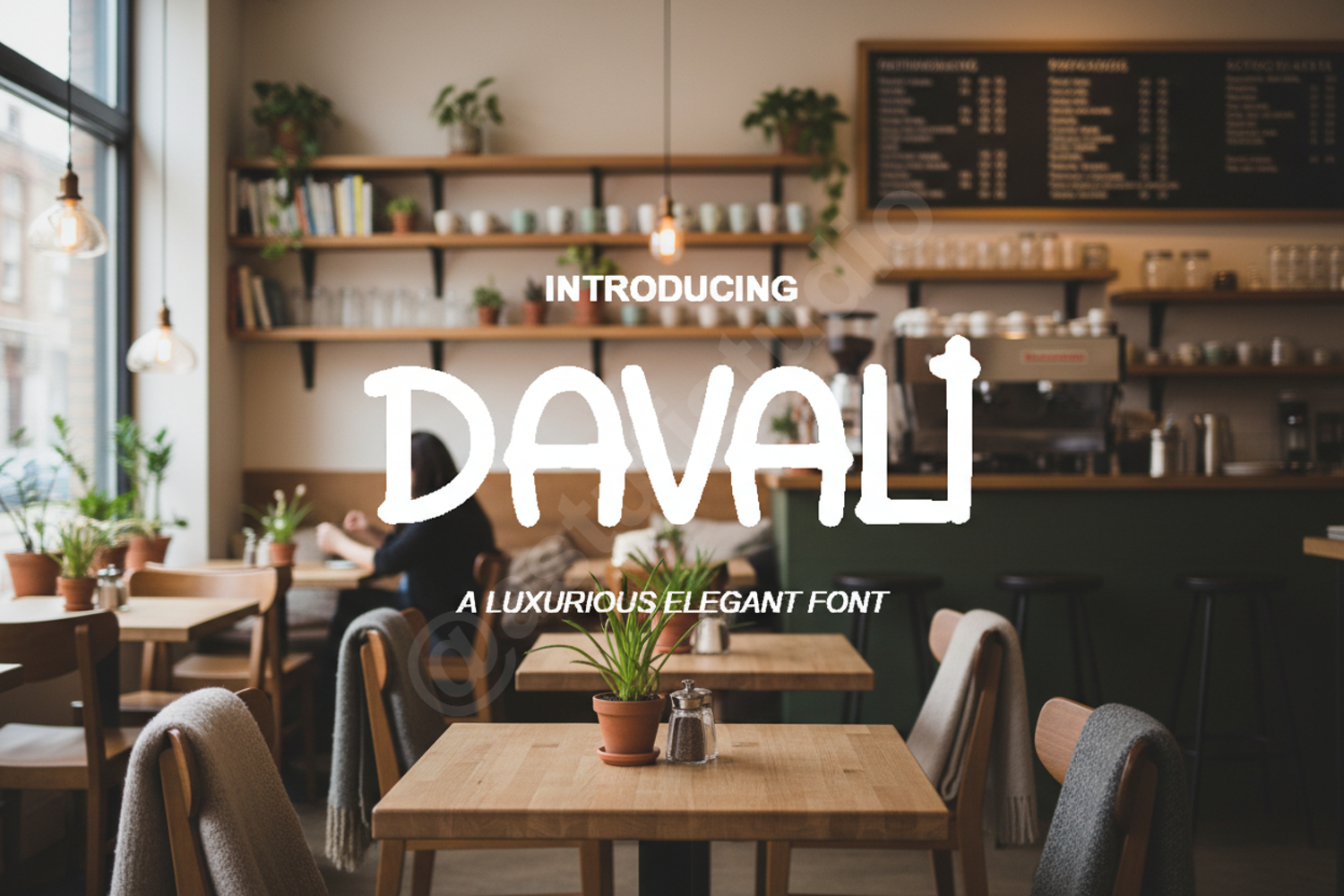
Davali | Modern Elegant Serif Typeface
Davali
Elevate your creative projects with Davali, a premium serif typeface designed for timeless elegance and high-end versatility. Davali seamlessly blends classic proportions with modern, clean lines, making it an essential tool for designers who prioritize sophistication. Whether you are working on a minimalist brand identity or an intricate layout, Davali provides the perfect balance of character and legibility.
- Full set of uppercase and lowercase letters
- Comprehensive multilingual support
- Branding and Identity: Craft memorable logos and professional brand marks.
- Wedding Stationery: Create stunning, elegant invitations and save-the-date cards.
- Editorial Design: Perfect for high-fashion magazine headers and sophisticated body text.
- Social Media: Enhance your digital presence with stylish quotes and promotional graphics.
- Product Packaging: Add a touch of luxury to labels, boxes, and retail tags.